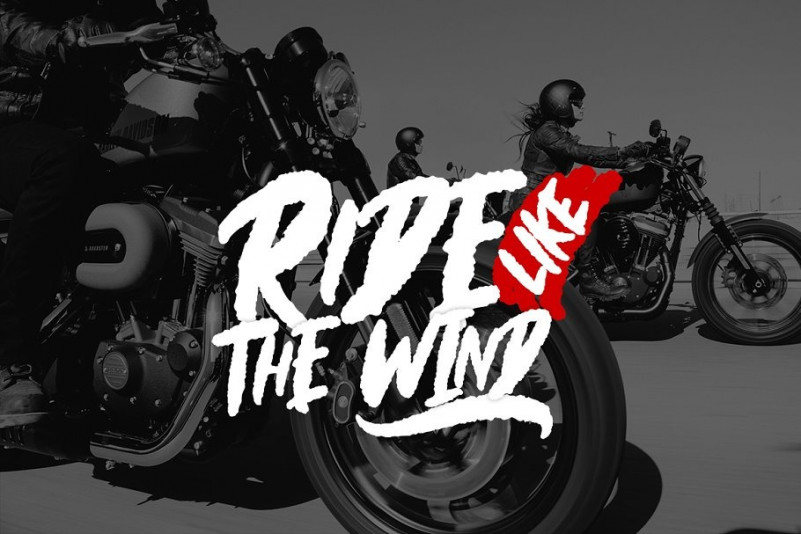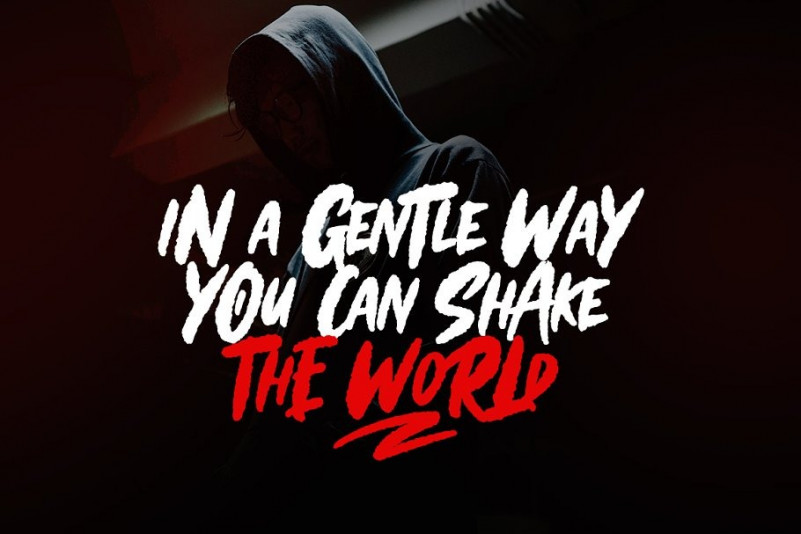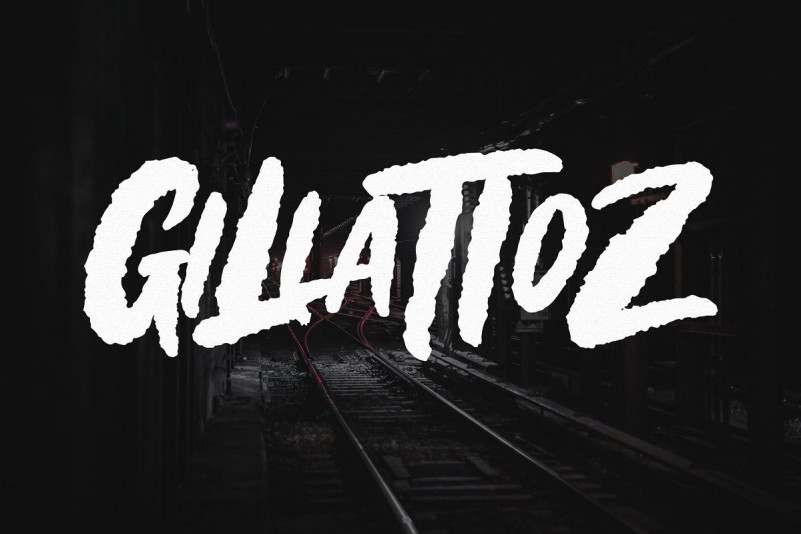
Gillattoz Brush Font
Introducing Gillattoz – Bold Dry Brush Font! Gillattoz is brush font bursting with natural rough dry brush strokes, and the stroke of hand sharp and quickly. You can use and enjoy Gillattoz, for anything from promotional material to product packaging, merchandise and branding projects
And this font perfect for logo, band, poster, apparel, album cover, book cover, product packaging, handwritten quotes, magazine and advertising. You can create with uppercase and lowercase combination, and make it as if you wrote it yourself.